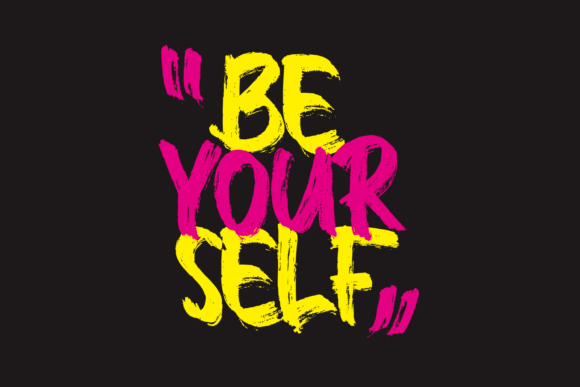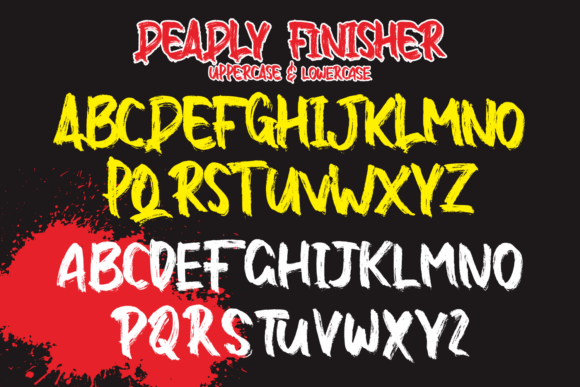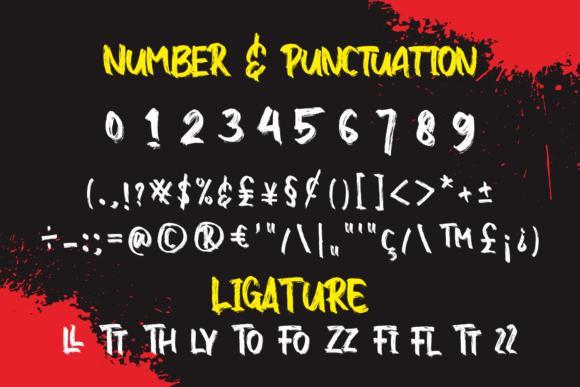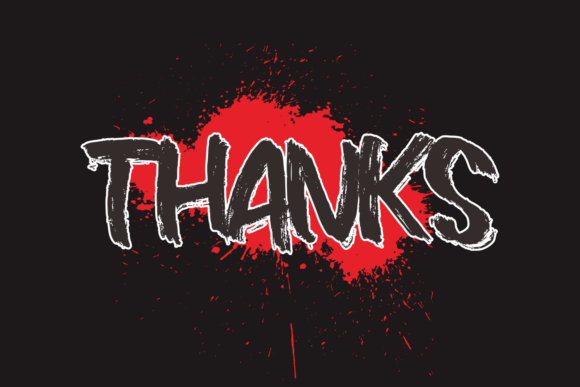
Introducing Deadly Finisher Font: The Ultimate Bold and Brushed Display Font
Are you tired of using the same old fonts for your designs? Look no further! Deadly Finisher Font is here to take your informal designs to the next level. This bold and brushed display font is perfect for crafters and designers who want to add a touch of casual trendiness to their work.
What Makes Deadly Finisher Font So Special?
Deadly Finisher Font is a unique and stylish font that is incredibly versatile. Its bold and brushed texture gives it a distinctive look that is sure to grab attention. Whether you’re designing a logo, a poster, or a social media graphic, this font is sure to make your design stand out.
Key Features of Deadly Finisher Font
- Bold and Brushed Texture: The font’s bold and brushed texture gives it a rugged and casual look that is perfect for informal designs.
- Casual and Trendy: Deadly Finisher Font is designed to be on-trend and stylish, making it perfect for designers who want to create modern and fashionable designs.
- Display Font: This font is specifically designed as a display font, making it perfect for headlines, titles, and other attention-grabbing elements.
- Easy to Read: Despite its bold texture, Deadly Finisher Font is easy to read, even at smaller sizes.
Perfect for Informal Designs
Deadly Finisher Font is incredibly versatile and can be used for a wide range of informal designs, including:
- Social Media Graphics: Use Deadly Finisher Font to create eye-catching social media graphics that will grab the attention of your followers.
- Posters and Flyers: This font is perfect for creating bold and attention-grabbing posters and flyers.
- Logos and Branding: Deadly Finisher Font can be used to create unique and stylish logos and branding materials.
- Crafting and DIY Projects: This font is also perfect for crafters who want to add a personal touch to their DIY projects.
Tips and Tricks for Getting the Most Out of Deadly Finisher Font
- Experiment with Different Sizes: Deadly Finisher Font looks great at a range of sizes, from small to large. Experiment with different sizes to find the one that works best for your design.
- Pair it with Other Fonts: Deadly Finisher Font can be paired with other fonts to create a unique and stylish look. Try pairing it with a sans-serif font for a bold and modern look.
- Use it for Headlines and Titles: This font is perfect for headlines and titles, but can also be used for body text in smaller sizes.
Deadly Finisher Font is a bold and stylish display font that is perfect for informal designs. Its unique brushed texture and casual trendiness make it a must-have for designers and crafters who want to add a touch of personality to their work. With its ease of use and versatility, Deadly Finisher Font is sure to become a favorite in your design arsenal.